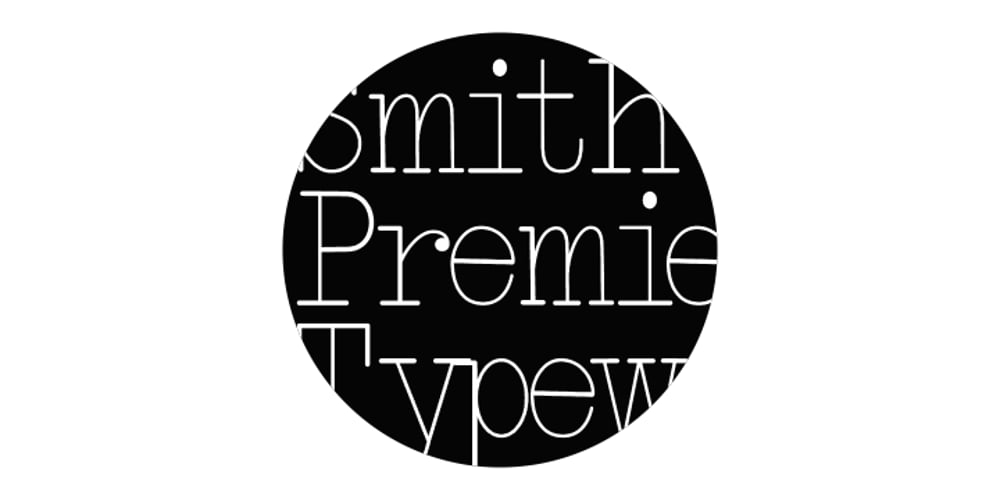
Smith-Premier Typewriter Font Family was designed by Iza W and published by Intellecta Design. Smith-Premier Typewriter contains 5 styles and family package options. Smith-Premier Typewriter is a typewriter font design, great for mimicking the sloppy ink effect of older machines.